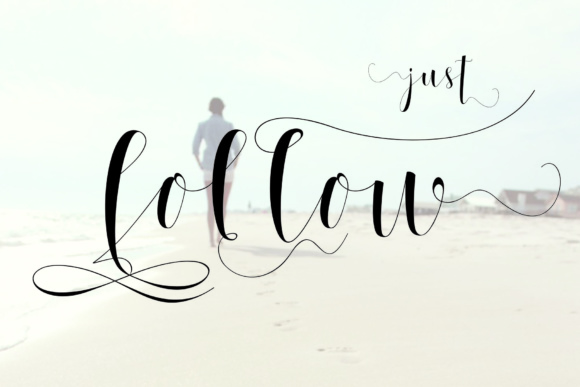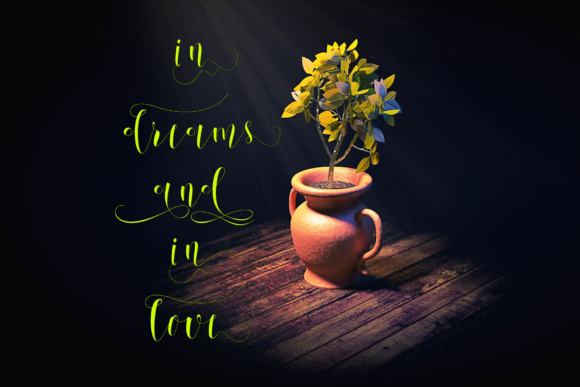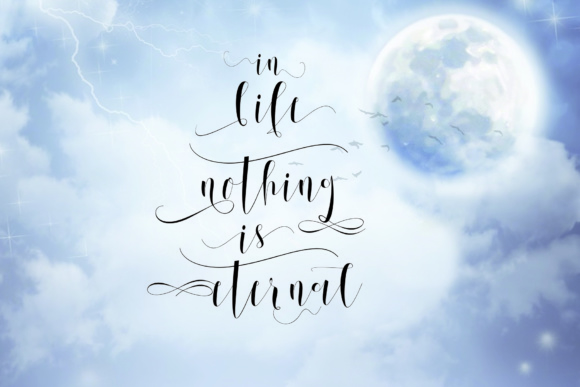
Introduction to Setangkai Script Font
As designers, we’ve all been there – staring at a blank canvas, trying to bring our creative vision to life. The perfect font can make all the difference, elevating your design from bland to grand. That’s where the Setangkai Script Font comes in – a stunning addition to your design resource arsenal.
This beautiful script font boasts a range of OpenType features, allowing for seamless customization and endless creative possibilities. With its gorgeous grounds, fine lines, and authentic look, it’s the perfect choice for any high-quality design project. Whether you’re working on a creative project with a transparent background or simply need a font that exudes elegance, Setangkai Script Font is a valuable resource that’s sure to impress.
Key Features of Setangkai Script Font
- Unique Handwritten Script Font Design: Setangkai Script Font offers a beautiful, elegant, and high-quality design perfect for creative projects.
- Perfect for Designers and Artists: Setangkai Script Font is ideal for designers and artists working on creative projects, such as logo designs, typography, and digital art.
Honest Review: Setangkai Script Font
I recently had the chance to work with the Setangkai Script Font, and I must say it’s a fantastic addition to any designer’s toolkit. As a design resource, it offers a unique, hand-drawn feel that can elevate any creative project.
What works well about the Setangkai Script Font is its high quality and versatility. It’s perfect for use on a transparent background, allowing the designer to create a beautiful, eye-catching effect. The font is also incredibly easy to use, with a wide range of styles and weights to choose from.
- ✨ Unique, hand-drawn feel that adds a personal touch to any design
- ✨ High quality and versatile, suitable for a wide range of creative projects
- ✨ Easy to use, with a wide range of styles and weights to choose from
One of the only limitations of the Setangkai Script Font is its limited language support. This may be a concern for designers working on projects that require a specific language or character set.
Overall, I’m thoroughly impressed with the Setangkai Script Font. It’s a high-quality, versatile design resource that can add a unique touch to any creative project. Whether you’re working on a logo, brochure, or website, this font is definitely worth considering.
How to Use Setangkai Script Font
The Setangkai Script Font is a high-quality, free download design resource perfect for any creative project. With its elegant and sophisticated design, this font is ideal for adding a touch of class to your designs.
Tips for Getting the Most Out of Setangkai Script Font
For the best results, use the Setangkai Script Font on a transparent background to really make it stand out. You can also combine it with other fonts for a unique and creative look. Experiment with different font sizes and styles to find the perfect combination for your design.